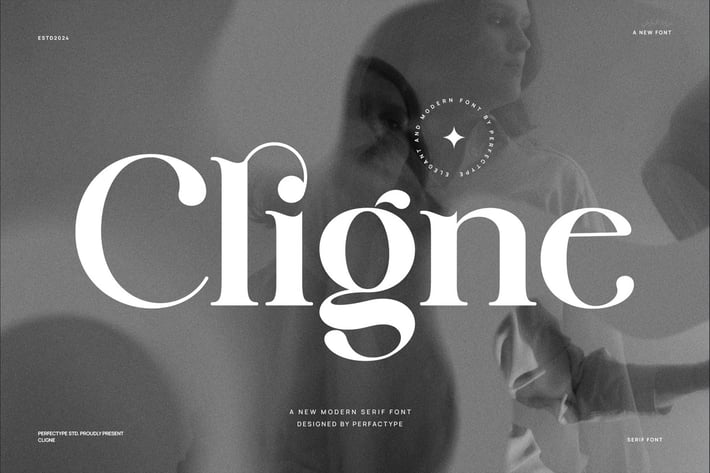
Cligne Modern Elegant Serif Font Typeface
Cligne is a modern serif font designed to bring elegance and simplicity to your designs. With clean lines and balanced shapes, this font offers a refined look that works perfectly in many creative projects. Whether you are designing invitations, branding, editorial layouts, or packaging, Cligne adds a timeless yet fresh style.
This font combines classic serif features with a modern twist, making it easy to read while giving your text a sophisticated appearance. It performs well both in large headings and smaller body text, keeping clarity across all sizes. This flexibility makes it ideal for magazines, logos, websites, and print materials.
Moreover, Cligne comes with a full set of uppercase and lowercase letters, numbers, and punctuation marks. This ensures you have everything you need for a wide range of projects. The balanced proportions help keep your text clean and legible, no matter where you use it.
Key benefits of Cligne include:
- Modern serif style with elegant design
- Perfect for branding and editorial use
- Clear readability in headlines and body text
- Full set of letters, numbers, and punctuation
- Balanced shapes for polished visuals
- Suitable for print and digital media
- Easily pairs with sans serif fonts
In addition, Cligne’s simple yet stylish look makes it easy to mix with other fonts. This helps you create professional and attractive layouts. If you want a font that is both classic and fresh, Cligne is an excellent choice.
In summary, Cligne is a versatile serif font that brings style and clarity to any project. Add Cligne to your font collection to enhance your designs with a modern and elegant touch.
This font combines classic serif features with a modern twist, making it easy to read while giving your text a sophisticated appearance. It performs well both in large headings and smaller body text, keeping clarity across all sizes. This flexibility makes it ideal for magazines, logos, websites, and print materials.
Moreover, Cligne comes with a full set of uppercase and lowercase letters, numbers, and punctuation marks. This ensures you have everything you need for a wide range of projects. The balanced proportions help keep your text clean and legible, no matter where you use it.
Key benefits of Cligne include:
- Modern serif style with elegant design
- Perfect for branding and editorial use
- Clear readability in headlines and body text
- Full set of letters, numbers, and punctuation
- Balanced shapes for polished visuals
- Suitable for print and digital media
- Easily pairs with sans serif fonts
In addition, Cligne’s simple yet stylish look makes it easy to mix with other fonts. This helps you create professional and attractive layouts. If you want a font that is both classic and fresh, Cligne is an excellent choice.
In summary, Cligne is a versatile serif font that brings style and clarity to any project. Add Cligne to your font collection to enhance your designs with a modern and elegant touch.